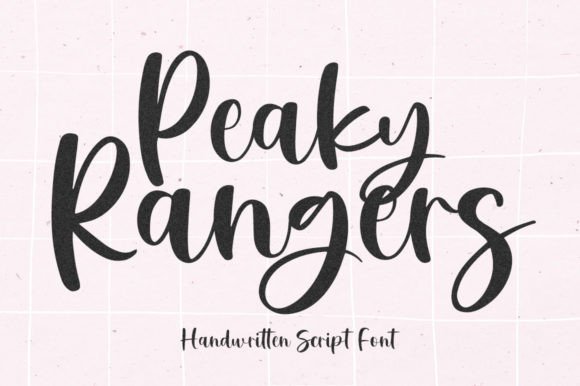
Unleash your creativity with Peaky Rangers, the extraordinary script font that captures the essence of modern calligraphy! Megatype's masterpiece offers a captivating fusion of style and functionality, leaving an indelible impression on every design project you embark on.
Experience the beauty of Peaky Rangers, a font that dances and flows across your designs, bringing life and vibrancy to every letter and word. Its modern calligraphy style exudes elegance and charm, instantly grabbing attention and captivating hearts. With Peaky Rangers, your words transform into captivating masterpieces, leaving a lasting impact on anyone who encounters them.
Dive into a world of limitless possibilities with Peaky Rangers. Let your imagination soar as you create stunning home décor, elegant wedding decorations, and enchanting invitations that reflect your unique style. Unleash your inner artist with Cricut projects and crafts, transforming ordinary designs into extraordinary expressions of creativity. Craft eye-catching SVG files, design T-shirts with impactful messages, and turn ordinary quotes into captivating works of art.
Peaky Rangers is your secret weapon for creating unforgettable branding, eye-catching logos, and prints that leave a lasting impression. Its versatility knows no bounds, adapting effortlessly to any project you have in mind. From greeting cards that warm hearts to business cards that exude professionalism, Peaky Rangers elevates every design element with its timeless beauty.